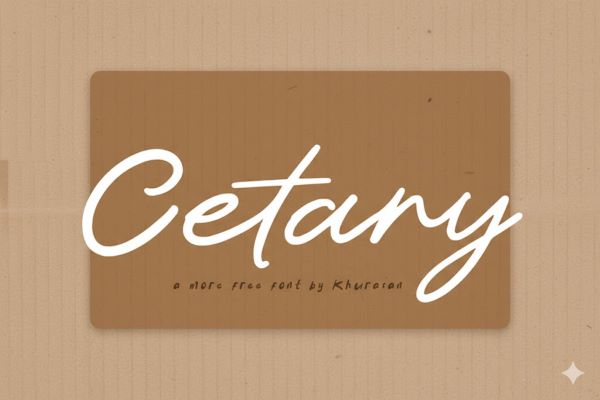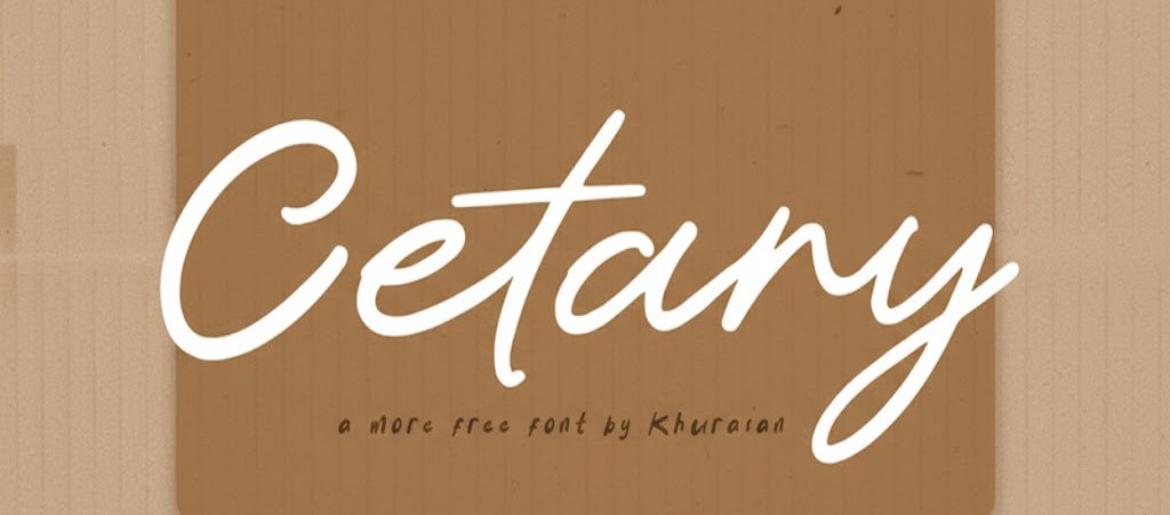
Cetary Font
Cetary Font delivers charmingly unassuming character through Syafrizal a.k.a. Khurasan’s casual handwritten design conveying warmth and personality. This versatile script typeface features monoline styling perfect for wide-ranging applications including posters, logos, magazines, book covers, banners, and countless creative projects.
Cetary’s easy-to-read style combined with simple yet elegant design makes it excellent choice for both amateur and professional designers seeking approachable handwriting aesthetics that add authentic human touch to branding, editorial design, social media graphics, and any application requiring friendly script typography.